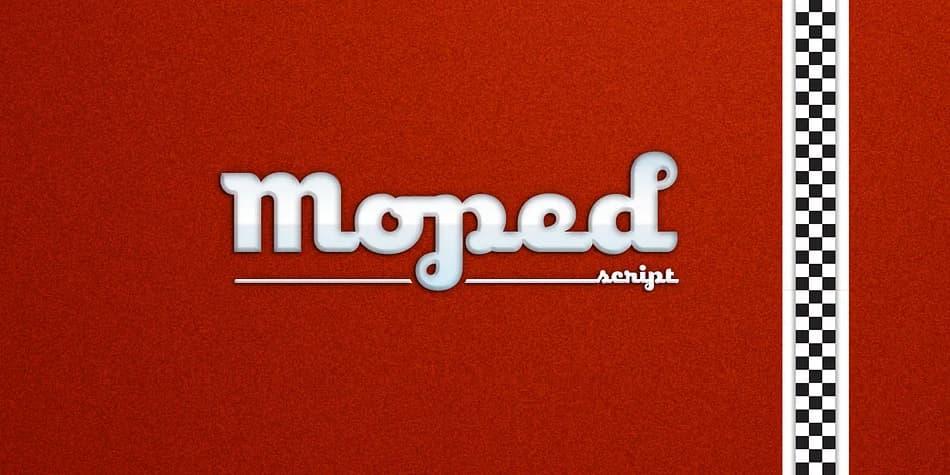
Flowing, rounded letterforms that balance nostalgic 1950s charm with contemporary sensibility define this typeface. Moped, designed by ToadFonts, channels that distinctive mid-century energy through forms once seen adorning chrome dashboards and vintage kitchen appliances. Three distinct styles (a versatile sans, a flowing script, and a distinctive retrolux variant with chromium-inspired details) give you multiple approaches to executing the same retro aesthetic vision. Each version includes smart ligatures that smooth out awkward letter pairings for tighter, more professional rendering across all applications.
This versatility makes Moped particularly effective for vintage-inspired branding work across numerous creative formats. Designers have found it especially successful for retro diner menu designs, boutique cosmetics and beauty brand identities, vinyl record label artwork, and mid-century themed packaging projects. Set it as a single headline or build out an entire corporate identity system with it; the ligatures ensure clean rendering regardless of letter combination. That precision matters most when working at large display sizes or creating detailed monochromatic stamp designs.
Moped Font is a display font that shines as a display or heading face. Pair it with a clean sans-serif or serif font for body text โ the contrast creates a clear hierarchy while the two styles stay balanced and easy to read.
Moped Font
by ToadFonts